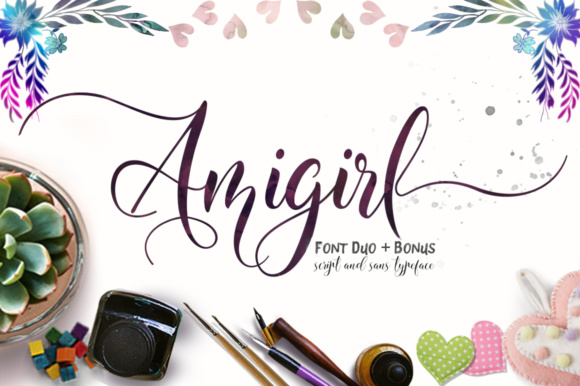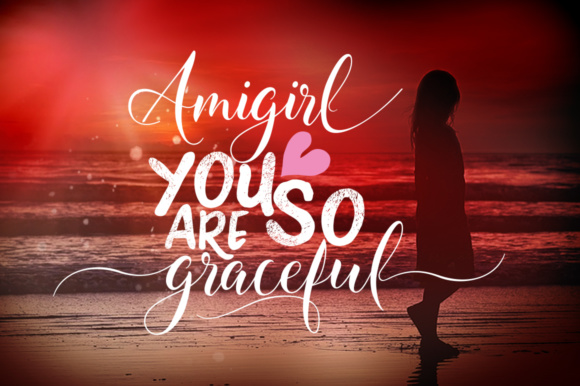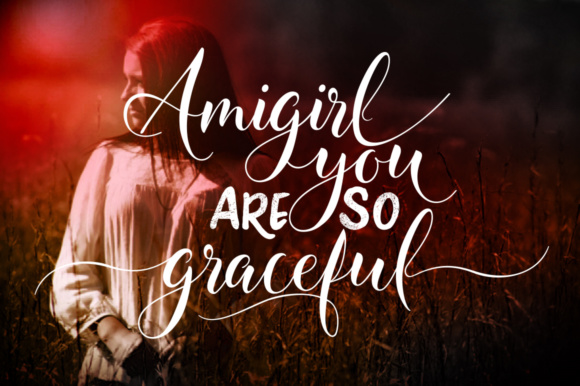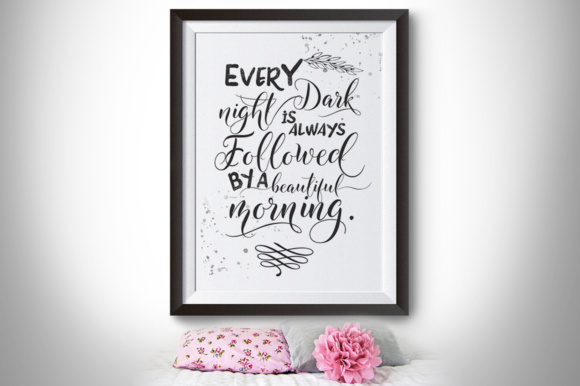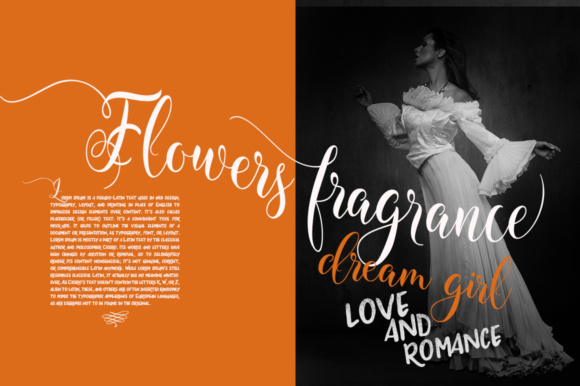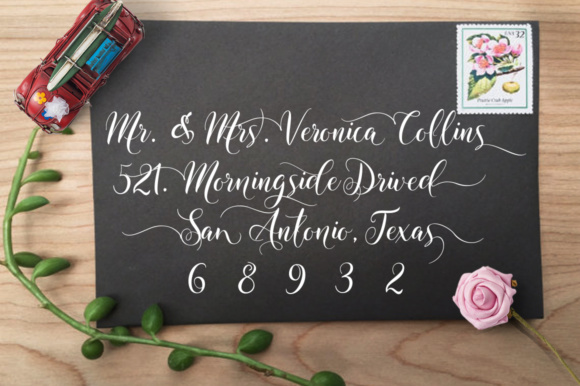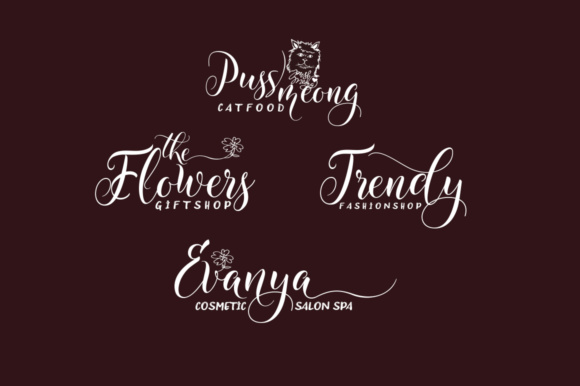
Amigirl Font
About Amigirl Font
Amigirl is a beautiful, swashy script that will give your designs a wholly stylish and lovely appeal! This font was created for use in displays, and looks best as the center point to your designs.